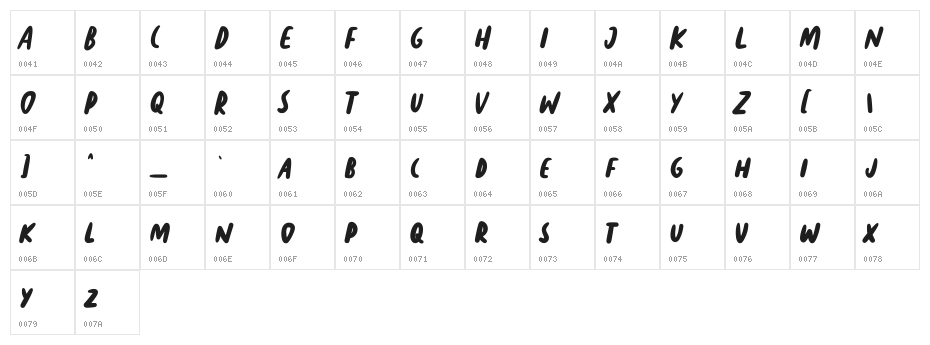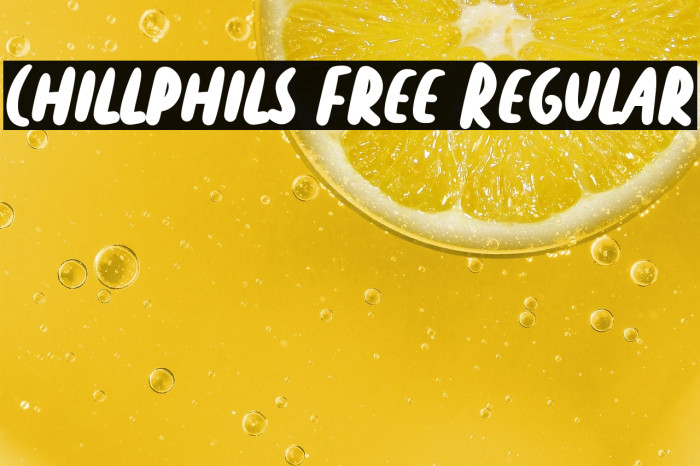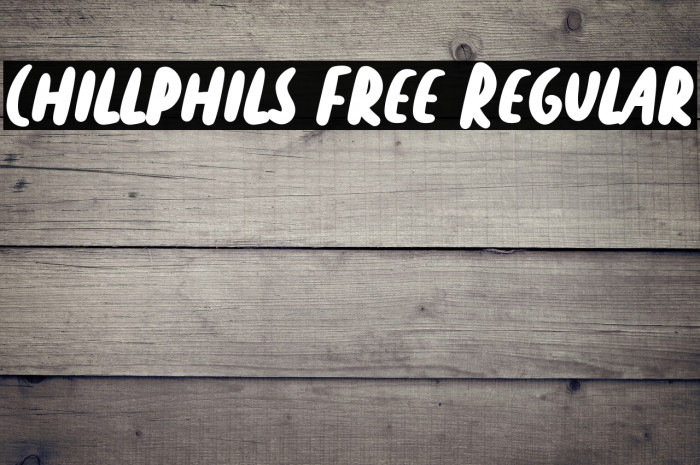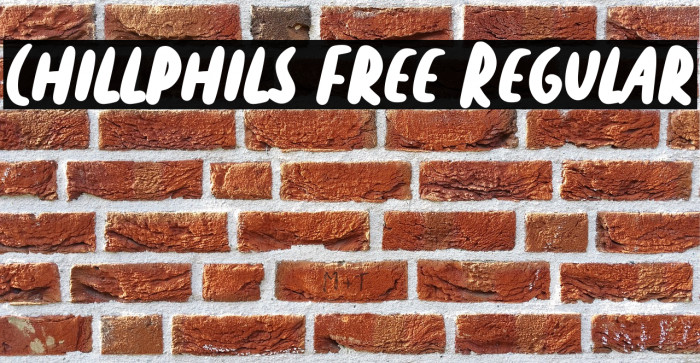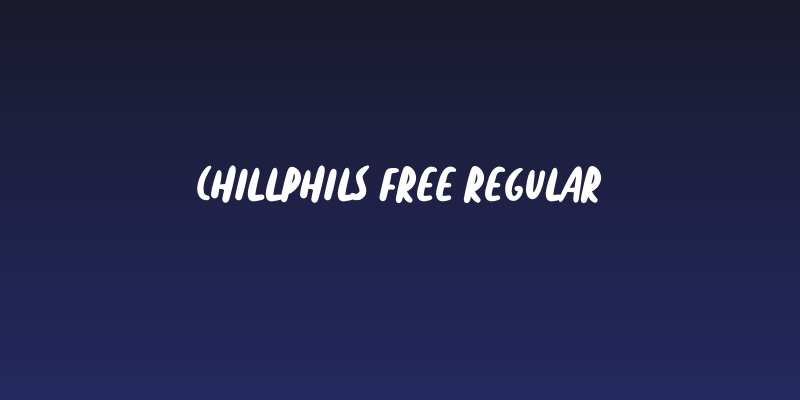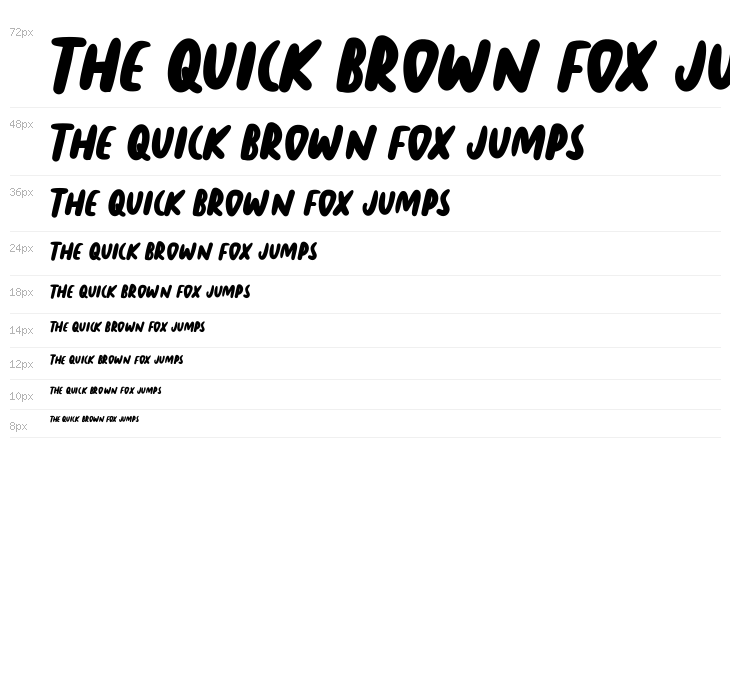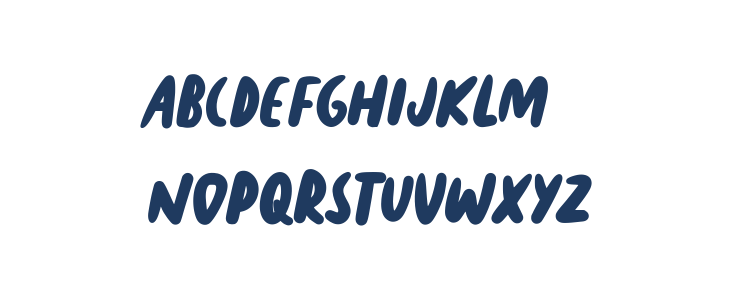
Chillphils Free Regular Font
Chillphils Free Regular Description
This font features a bold, playful style with rounded edges and a handwritten appearance. The letters are thick and slightly slanted, giving a casual and friendly vibe. The strokes are consistent in weight, providing a uniform look across all characters. The overall design is smooth and flowing, making it ideal for projects that require a personal touch. The font's informal nature makes it suitable for creative and fun applications, such as children's books, greeting cards, or playful branding.
| Proposed Projects | Ideal for children's books, greeting cards, playful branding, and creative projects. |